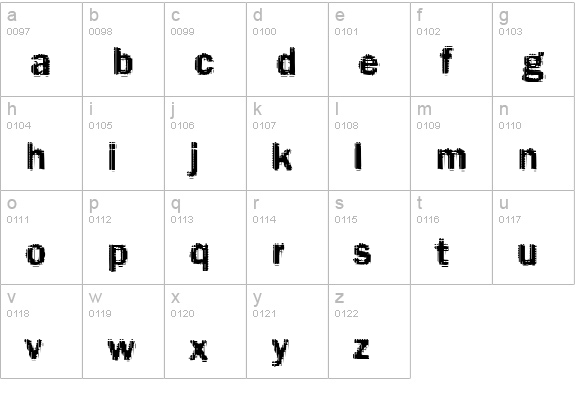
Funky12-Bold is a strong, high-contrast variant in the Funky12 typeface family \xE2\x80\x94 well suited to headlines, attention-grabbing titles, and strong calls-to-action.
Funky12-Bold font is a vibrant and playful typeface that exudes a sense of fun and energy. With its bold and eye-catching design, this font is perfect for making a statement in your designs. Whether you're creating posters, flyers, or social media graphics, Funky12-Bold is sure to grab attention and leave a lasting impression. Best of all, Funky12-Bold is available for free download at FontsMarket.com. This means you can easily add this unique font to your collection without any cost. Don't miss out on the opportunity to enhance your designs with the bold and funky style of Funky12-Bold font - download it for free today!